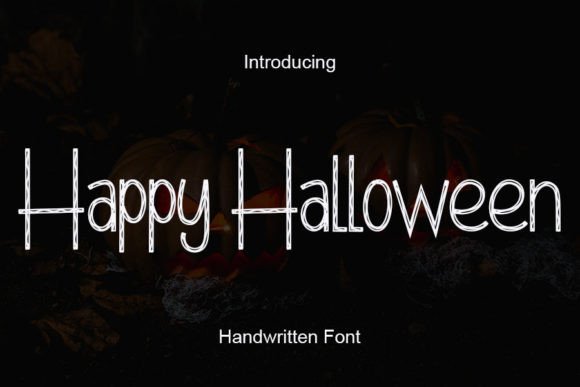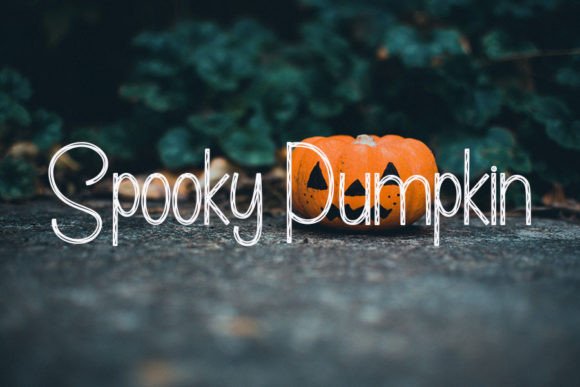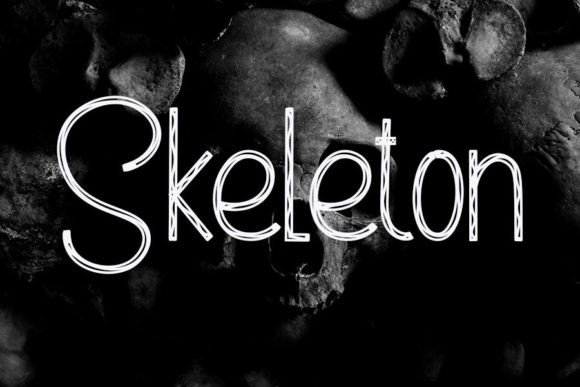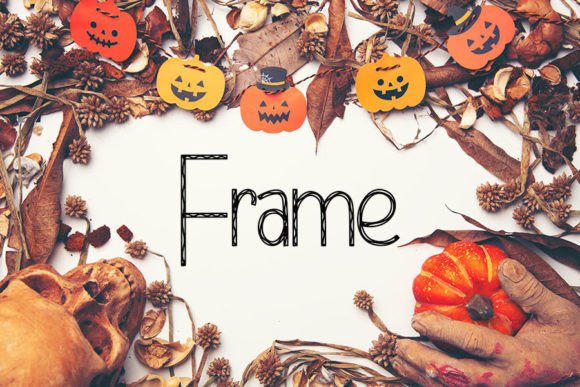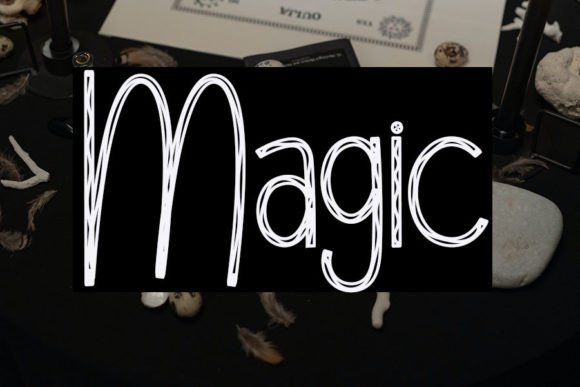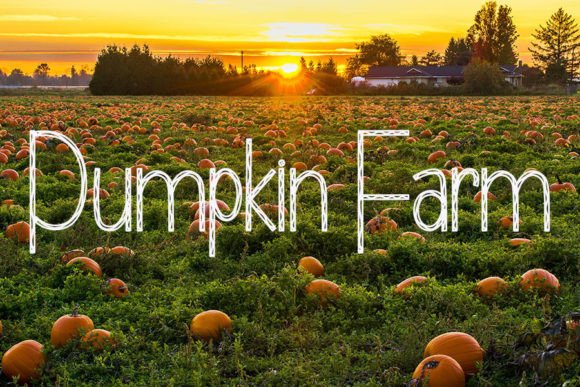
Happy Halloween Font
Happy Halloween Handwritten Font – Fun and Cute Typeface
The Happy Halloween Handwritten Font is a playful and charming typeface that brings joy and creativity to your favorite projects. With its distinct handwritten style, it adds a personal and festive touch to designs. Whether you’re creating holiday cards, posters, or decorations, this font ensures your work looks spectacular and unique.
A Distinct Handwritten Style
The Happy Halloween Handwritten Font stands out because of its cute, casual strokes that feel natural and inviting. Its playful curves give your designs warmth while maintaining legibility. This balance makes it ideal for projects that need a friendly handwritten feel without losing clarity.
Perfect for Halloween and Beyond
While designed with a festive spirit, the Happy Halloween Handwritten Font is versatile enough for use outside of seasonal projects. It looks great on greeting cards, party invitations, and DIY crafts. Its timeless handwritten charm makes it suitable for both fun holiday themes and everyday creative designs.
Versatility for Creative Projects
The Happy Halloween Handwritten Font works beautifully across both digital and print mediums. From posters and product packaging to social media posts and handmade crafts, it adapts to many needs. Its fun and timeless style ensures that your text stands out and conveys the right mood.
Why Designers Love This Typeface
Designers value fonts that combine personality with practicality. The Happy Halloween HandwrittenFont offers both by bringing playful charm to designs while ensuring readability. Its adaptability makes it a reliable font for professionals and hobbyists alike.